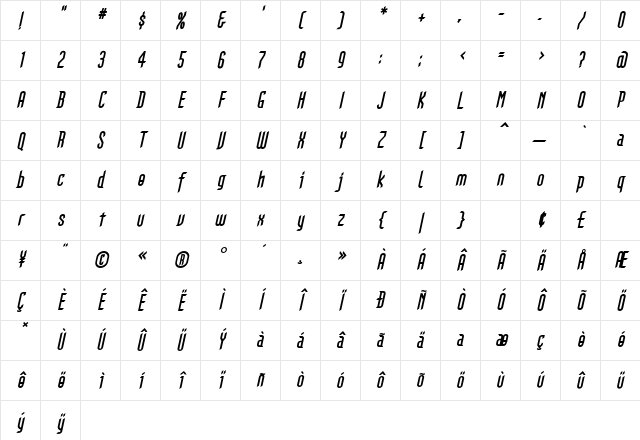
Gothikka Bold Italic Free Font
Gothikka Bold Italic
Foundry: TracerTong / WhoAmI - Sept 2008
Design Context for Gothikka
Gothikka is a composed and adaptable typeface that performs quietly and consistently across a wide range of design contexts. The slanted form adds forward momentum and visual energy. Its bold stroke weight gives it real presence on the page.